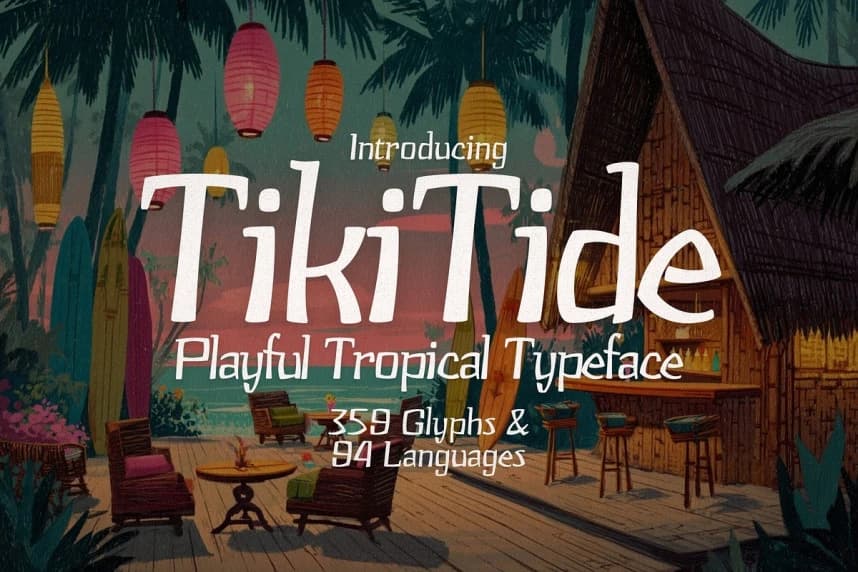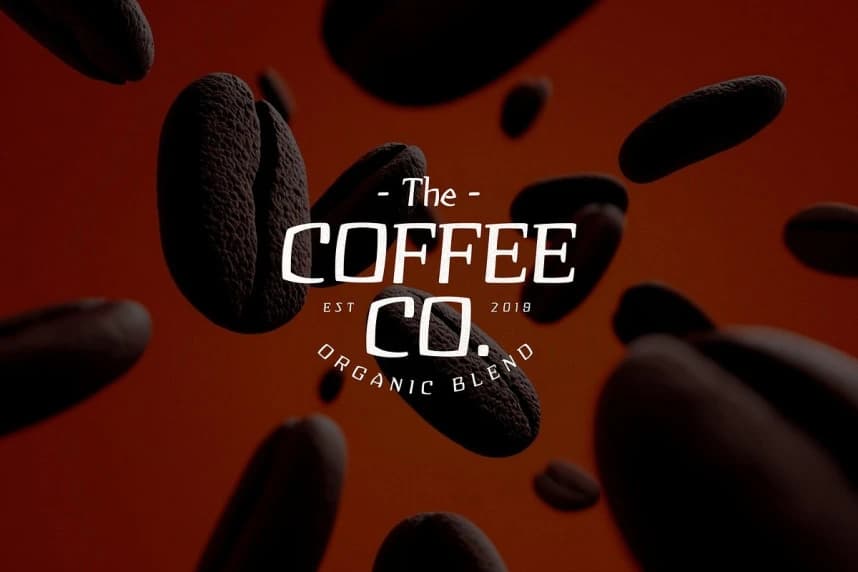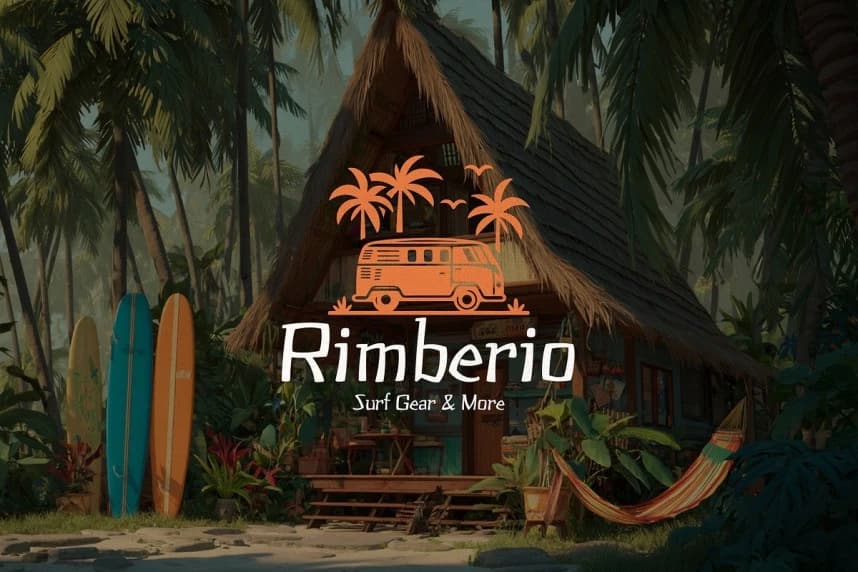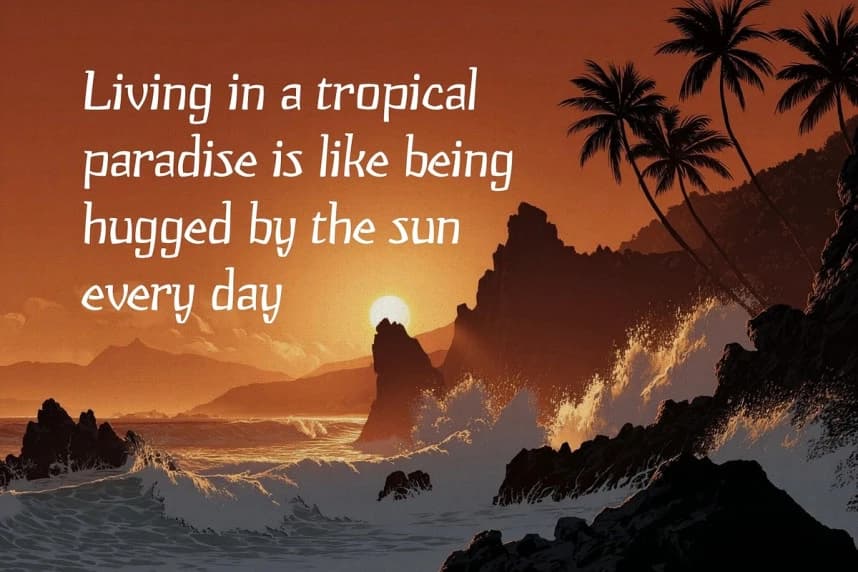
Tiki Tide Font
Tiki Tide Font, a vibrant and organic Hawaiian-inspired font that radiates laid-back tropical vibes. Handcrafted with a natural flow, this typeface captures the essence of paradise—sun-kissed beaches, swaying palm trees, refreshing cocktails, and the rhythm of island life.